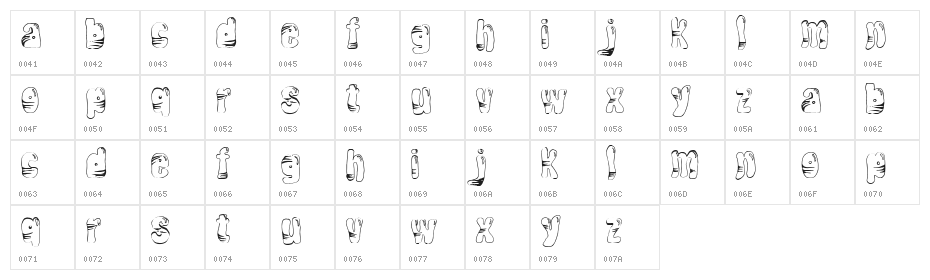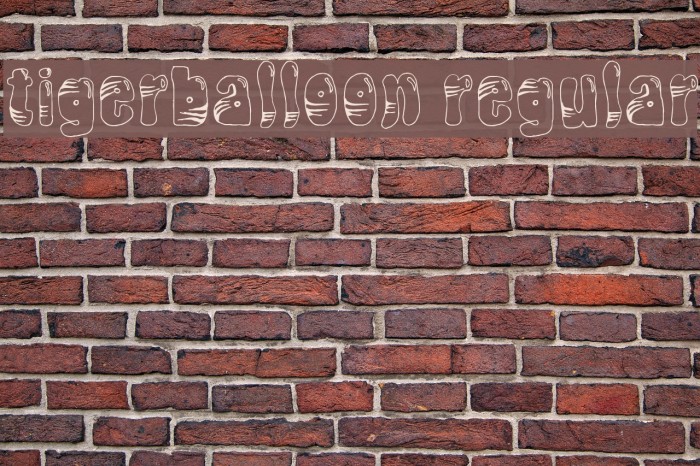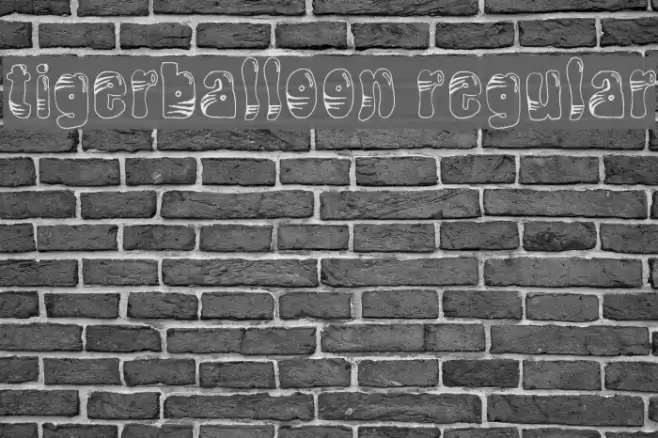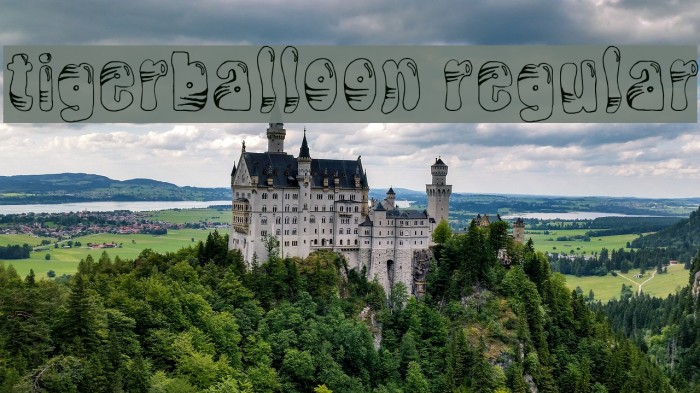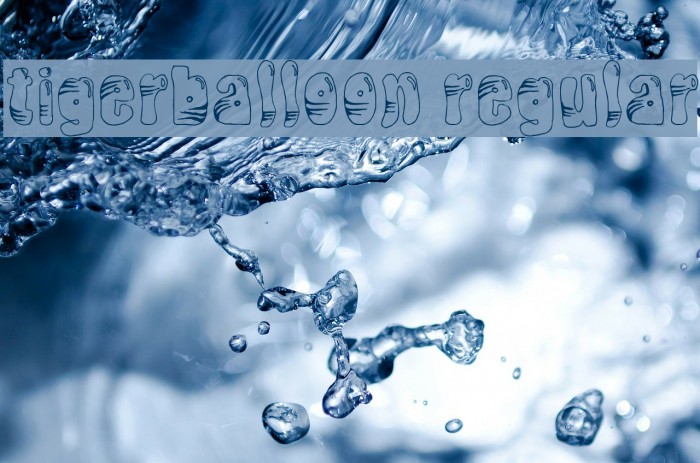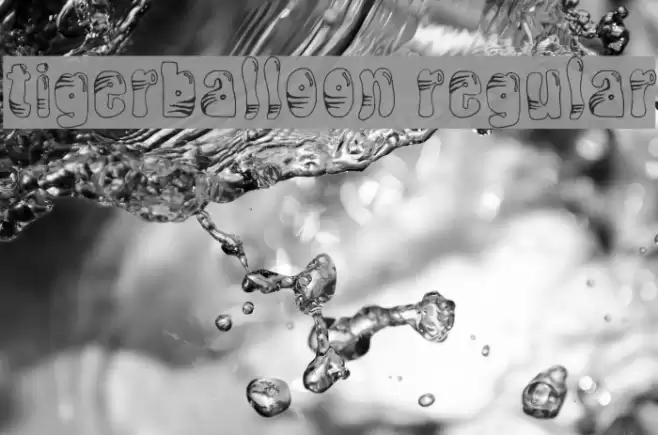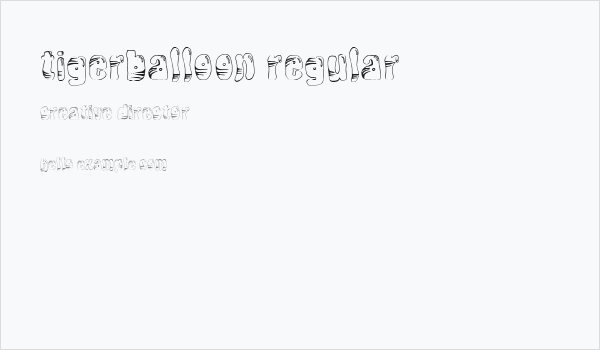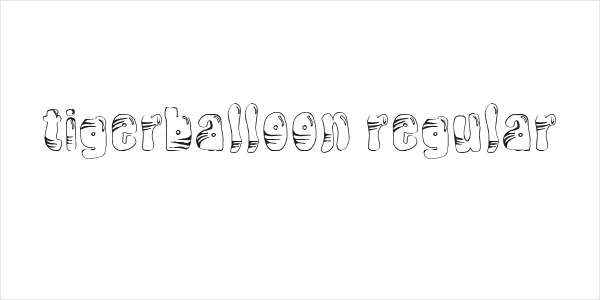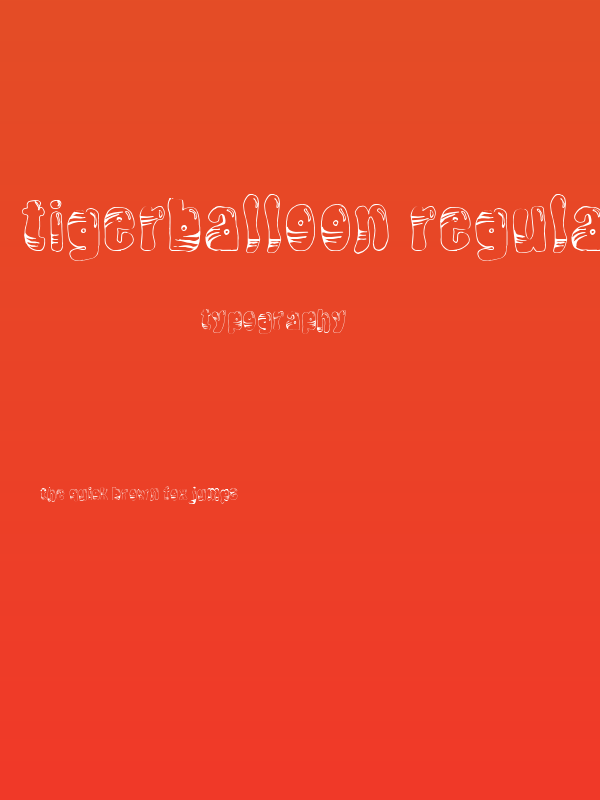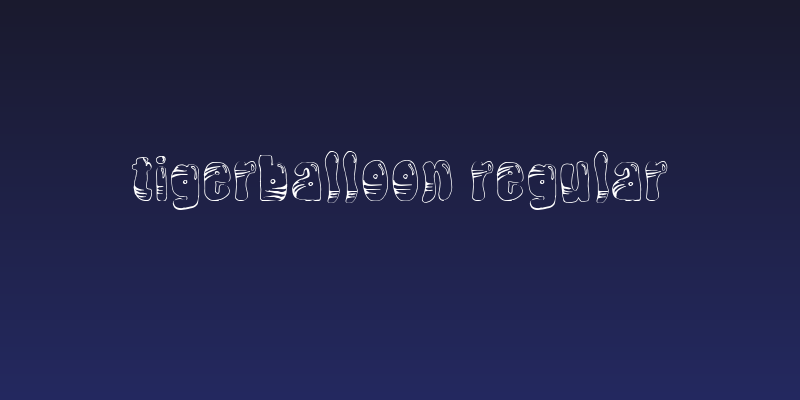
TigerBalloon Regular Font
TigerBalloon Regular Description
This playful and whimsical font features a balloon-like appearance with a tiger stripe pattern. Each character is designed with a rounded, inflated look, giving it a fun and bouncy feel. The stripes add a unique texture, reminiscent of a tiger's fur, which enhances its playful nature. The font maintains a consistent style across both uppercase and lowercase letters, as well as numbers and special characters. Its distinct and decorative style makes it ideal for projects that require a touch of fun and creativity.
| Proposed Projects | Ideal for children's books, party invitations, playful branding, and creative posters. |